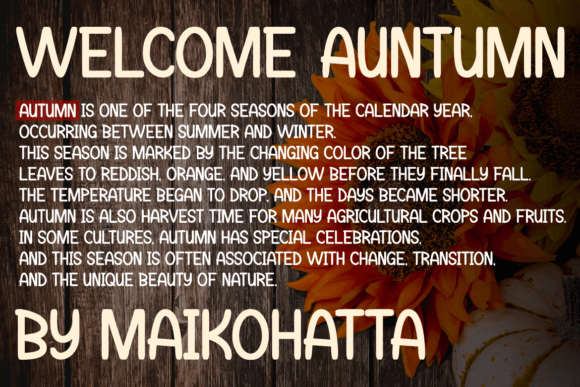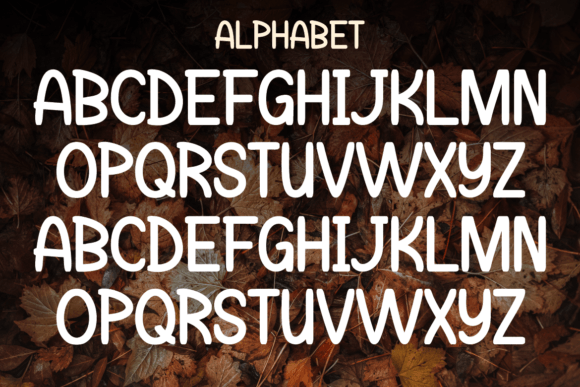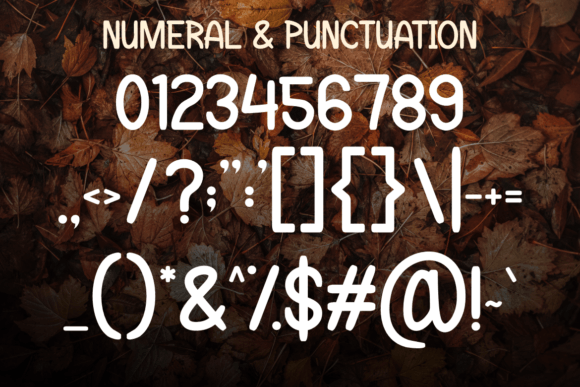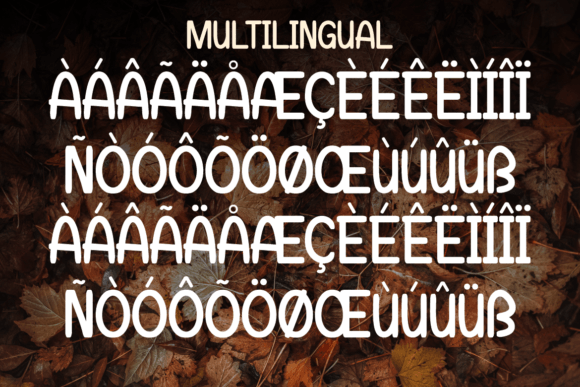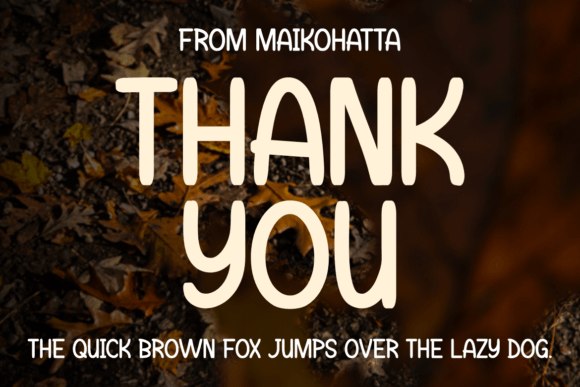
Introducing Drop Leaf Font: Capturing the Essence of Autumn
As the seasons change and autumn arrives, designers and crafters often find themselves searching for the perfect font to evoke the warmth and coziness of the season. Look no further than the Drop Leaf Font, a beautiful and evocative typeface that embodies the natural wonder of fall. With its delicate lines, gentle curves, and stunning natural charm, this font is the perfect addition to any design project that aims to capture the essence of autumn.
A Font that Evokes Nostalgia and Wonder
The Drop Leaf Font features a unique style that creates a warm sense of nostalgia, recalling the magic of leaves changing colors as the seasons shift. The font’s design is characterized by intricate, delicate lines and gentle curves that add depth and dimension to each letter character. This results in an impression of softness and tranquility, making it perfect for designs that aim to convey a sense of coziness and warmth.
Perfect for Autumn-Themed Designs
Drop Leaf is highly suitable for projects that aim to depict the beauty and charm of the autumn season. Whether you’re designing invitations, greeting cards, posters, or other creative projects, this font works beautifully to impart a stunning natural touch and infuse the captivating ambiance of fall into every design. From rustic and earthy to elegant and sophisticated, the Drop Leaf Font adapts seamlessly to a wide range of design styles, making it a versatile and valuable addition to any designer’s toolkit.
Key Features of Drop Leaf Font
- Delicate lines and gentle curves: Add dimension and depth to letter characters, creating a sense of softness and tranquility.
- Nostalgic and evocative style: Recalls the natural wonder of leaves changing colors and the magic of the autumn season.
- Highly versatile: Suitable for a wide range of design projects, from invitations and greeting cards to posters and more.
- Stunning natural charm: Infuses designs with the captivating ambiance of fall, adding a touch of warmth and coziness.
Design Ideas with Drop Leaf Font
The Drop Leaf Font is a versatile typeface that can be used in a wide range of design projects. Here are a few ideas to get you started:
- Autumn-themed invitations: Use Drop Leaf to create beautiful and evocative invitations for fall parties, harvest festivals, and other seasonal events.
- Cozy greeting cards: Add a touch of warmth and personality to your greeting cards with the Drop Leaf Font, perfect for sending to friends and loved ones during the fall season.
- Fall posters and flyers: Create stunning posters and flyers that capture the essence of autumn, from pumpkin patches to apple picking and hayrides.
- Rustic and earthy branding: Use Drop Leaf to add a touch of natural charm to your brand’s identity, perfect for businesses that want to evoke the warmth and coziness of the fall season.
In conclusion, the Drop Leaf Font is a beautiful and evocative typeface that captures the essence of autumn. With its delicate lines, gentle curves, and stunning natural charm, this font is perfect for designers and crafters who want to add a touch of warmth and coziness to their designs. Whether you’re creating invitations, greeting cards, posters, or other creative projects, the Drop Leaf Font is a versatile and valuable addition to any design toolkit.